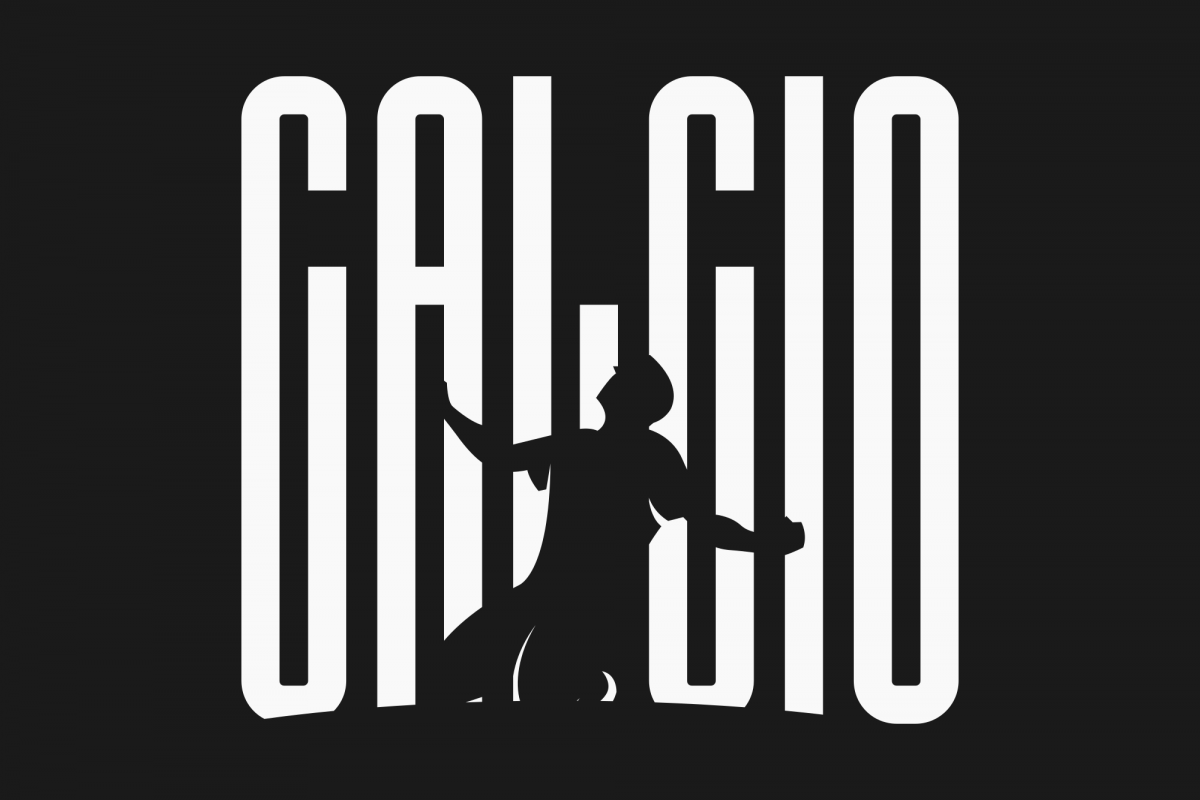
Calcio - Ultra Condensed
Calcio - Ultra Condensed and minimalist character! it's perfect for logos, name card, magazine layouts, invitations, headers, or even large-scale artwork.